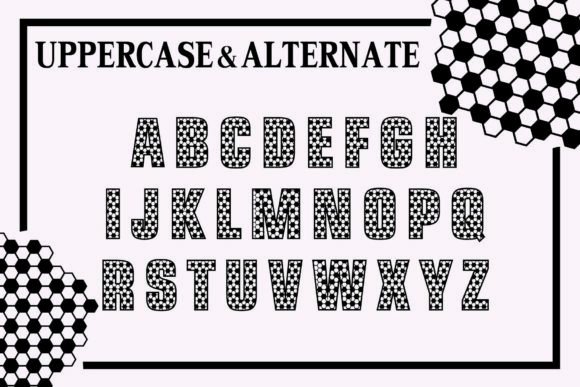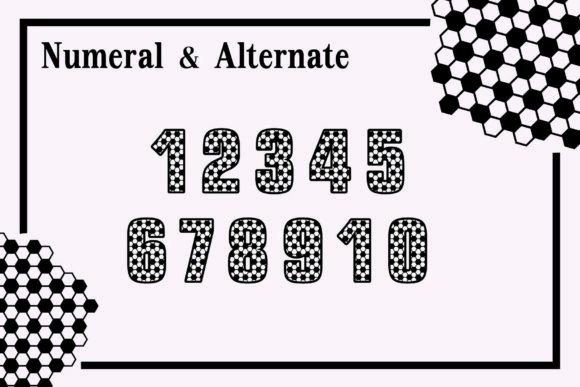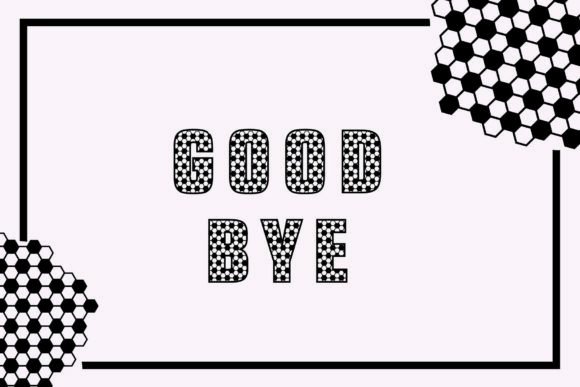
Introduction to Football Font
Football is created to add a vibrant touch to your sport-inspired designs.
Suitable for sports design, team, jersey, league, movie, documenter, film, logo, poster, game, book cover, headlines, title, and many more projects .
Key Features of Football Font